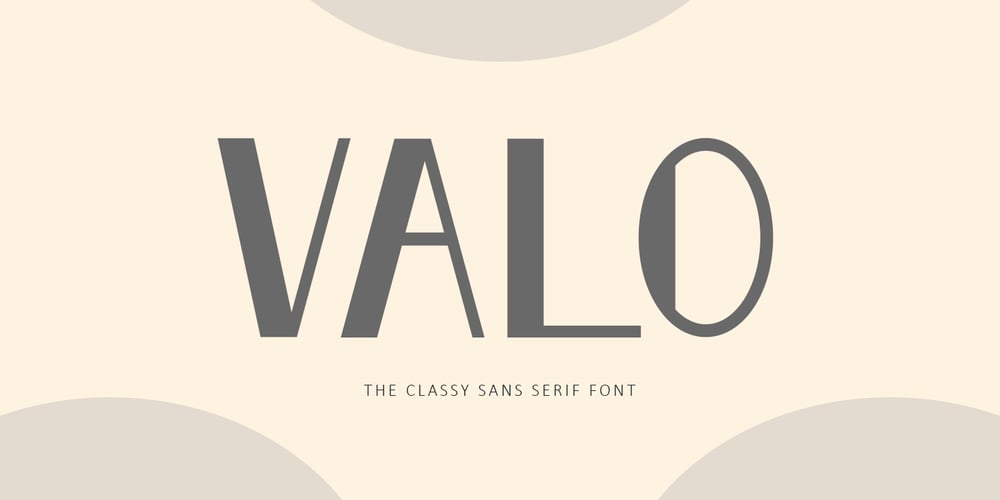
Valo
Valo font
Valo Font Family was designed by Bayu Suwirya and published by Illushvara. Valo contains 1 styles and family package options. Hello,We are so excited to announce our new fonts “Valo” is a classy and adaptable sans serif font. Whatever the topic, this font will be a wonderful asset to your font library, as it has the potential to enhance any creation from letterheads and titles, to the best branding.Features : Uppercase and lowercase Numbers Symbols Multilingual Accent If you have any question, don’t hesitate to contact me. Happy Designing !!!Thank You,Bayu Suwirya